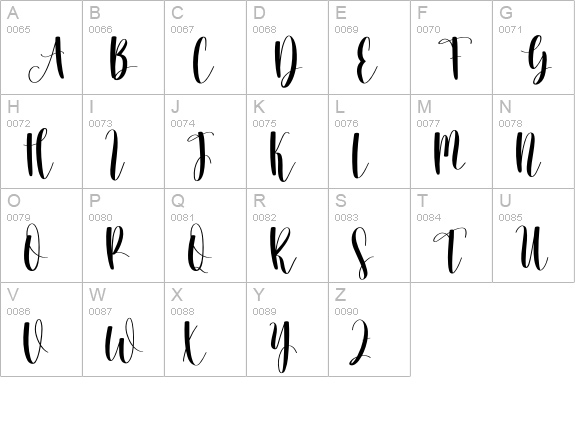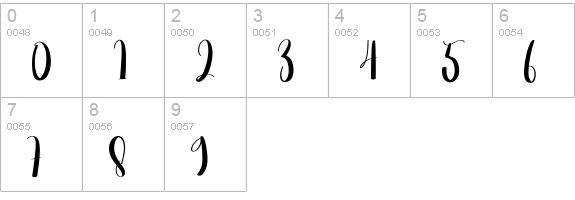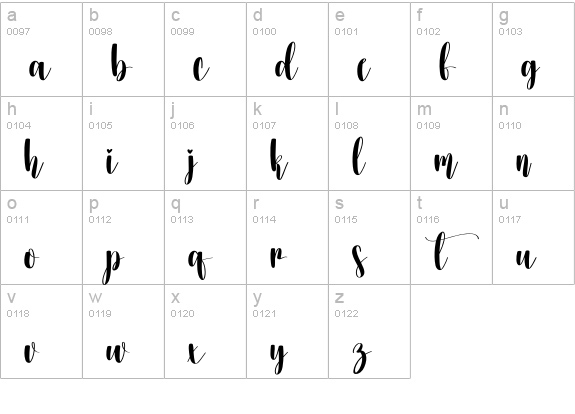
History Font Details
History is a free for personal use font in the Script > Handwritten category, designed by scratchones. It has been downloaded 21 times and is available for Windows, Mac and Linux.
The History font is a timeless and elegant typeface that pays homage to the rich tapestry of the past. With its classic and sophisticated design, History font brings a sense of nostalgia and tradition to any project. This versatile font is perfect for adding a touch of vintage charm to your designs, whether you're working on invitations, posters, branding, or any other creative project.